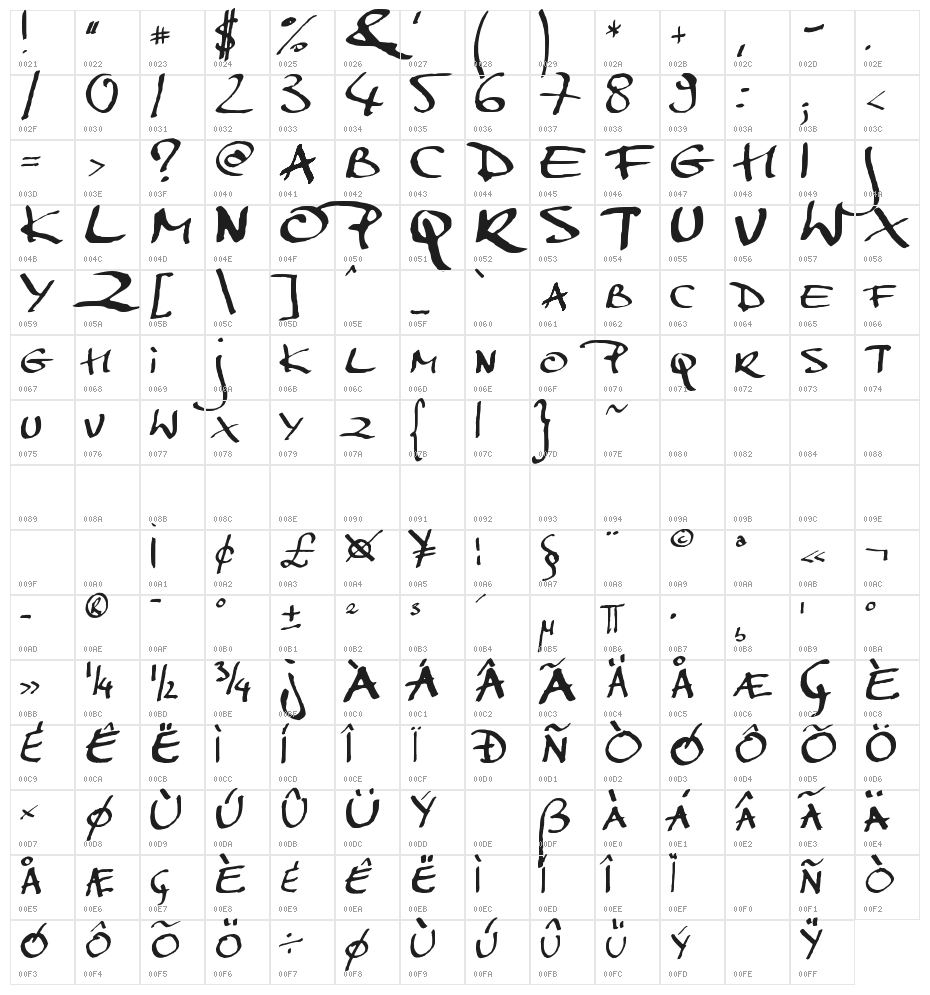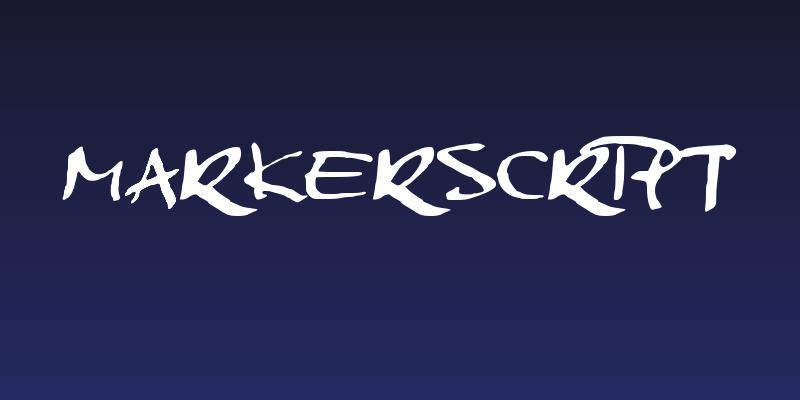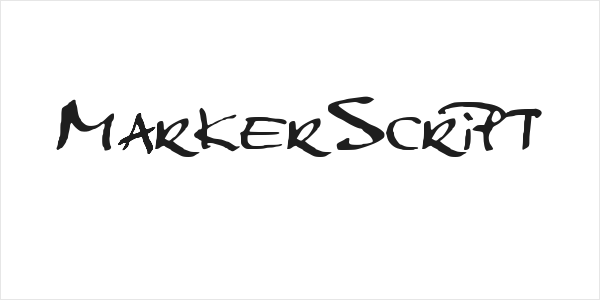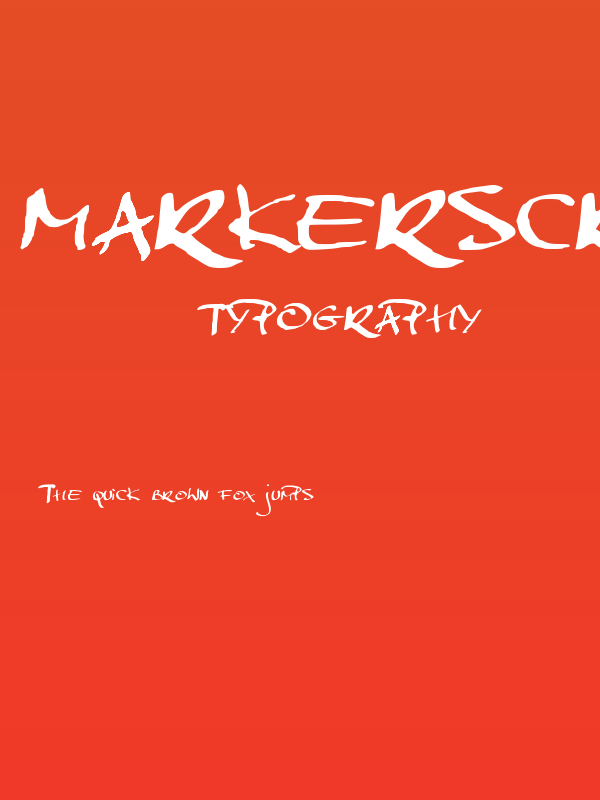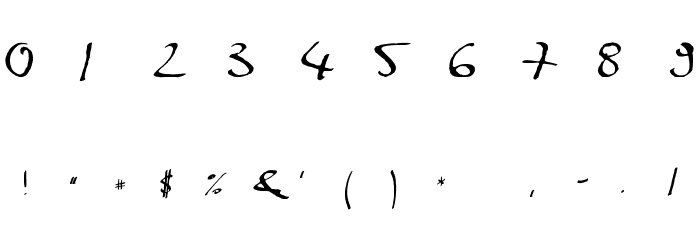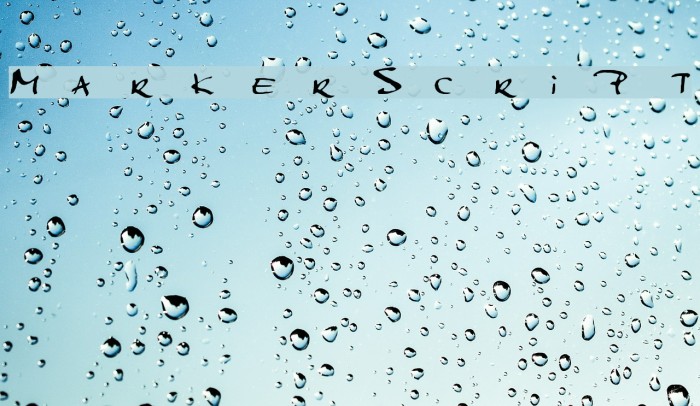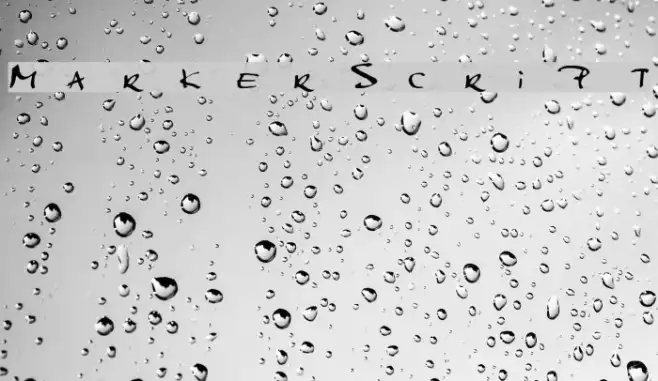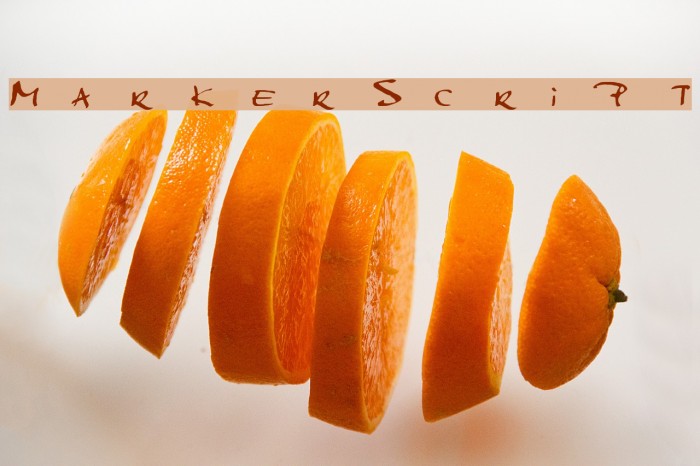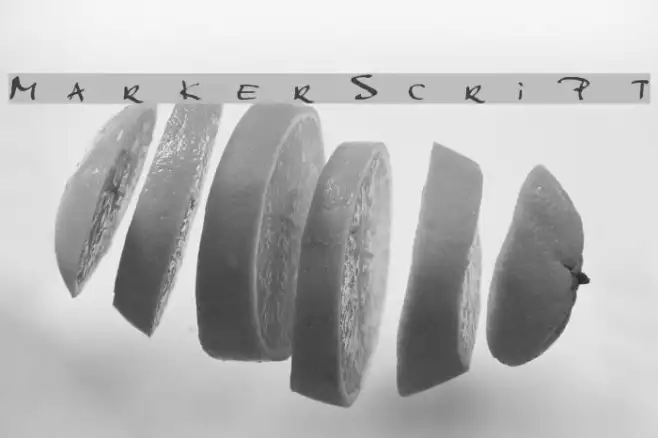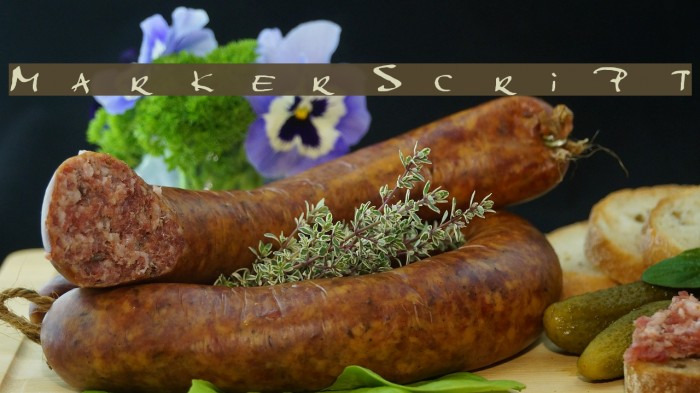
MarkerScript Font
MarkerScript Description
This font exudes a casual, handwritten style reminiscent of a marker or brush pen. The characters are slightly irregular, giving it a personal and informal touch. The uppercase letters are bold and expressive, while the lowercase letters maintain a consistent flow, enhancing readability. The numbers are distinct and easy to distinguish, with a playful yet clear design. Special characters are creatively styled, adding to the font's overall charm. This font is perfect for projects that require a personal, artistic touch, such as invitations, greeting cards, or creative branding.
| Overall Style | Casual, Artistic |
| Use Case | Headlines, Creative projects, Personal notes |
| Proposed Projects | Ideal for invitations, greeting cards, artistic branding, and creative projects. |